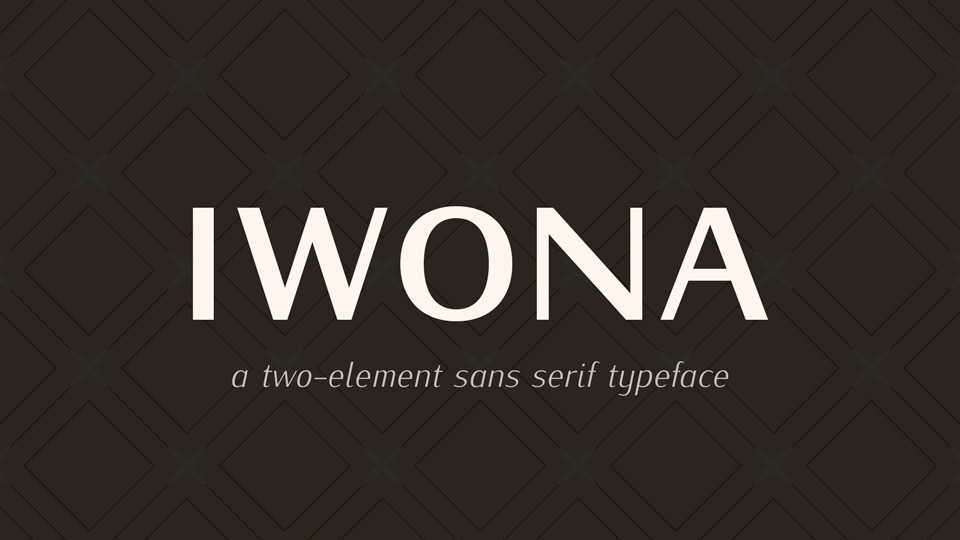
Download Iwona typeface, a sans serif font family, an alternative version of the Kurier fonts, designed for linotype typesetting of newspapers and similar periodicals.
Designer: Janusz M. Nowacki